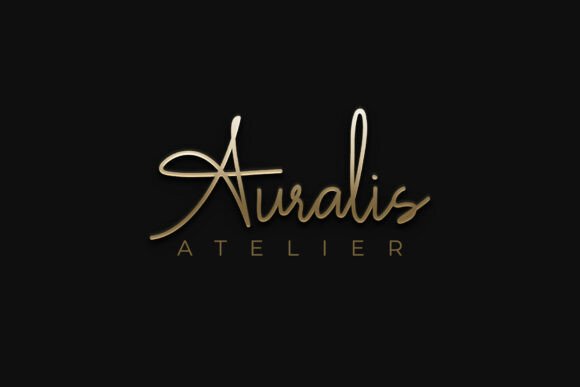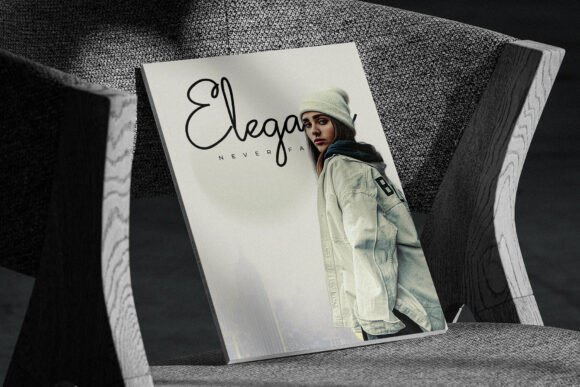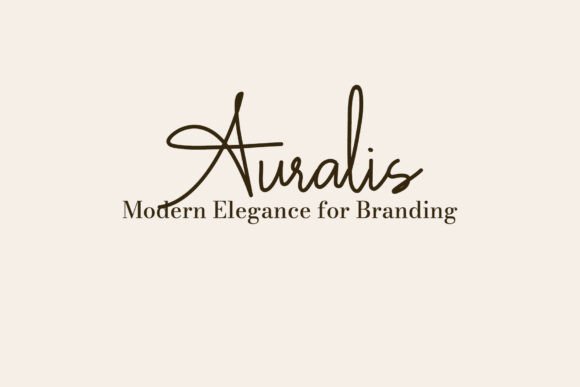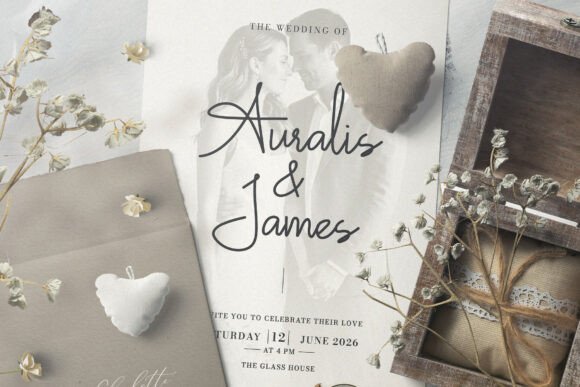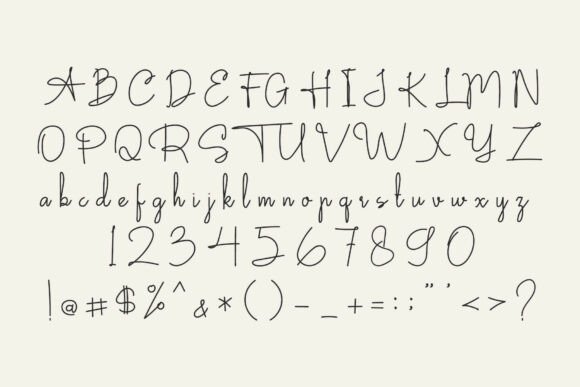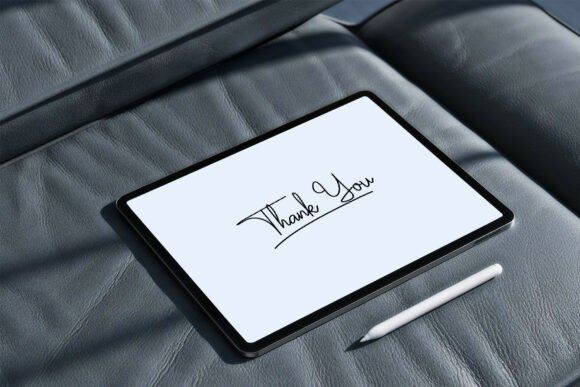
Auralis Signature Font: Elevate Your Designs with Elegance and Sophistication
In the world of typography, a font can make or break the aesthetic of a design. For designers and crafters looking to add a touch of elegance and sophistication to their projects, Auralis Signature Font is an excellent choice. This modern handwritten script font is designed to bring a natural flow and refined character to a variety of designs, from branding and wedding invitations to logos and editorial content.
The Characteristics of Auralis Signature Font
Auralis Signature Font is distinguished by its bold yet refined stroke, which gives it a unique and sophisticated feel. The font’s modern elegance is balanced by its signature feel, making it perfect for creating a stylish and timeless look. Whether you’re working on a creative project or a professional one, Auralis Signature Font is versatile enough to adapt to your needs.
Key Features of Auralis Signature Font
• Modern Handwritten Script: Auralis Signature Font has a natural flow that mimics handwritten scripts, adding a personal touch to your designs.
• Elegant Character: Each letter is designed with elegance in mind, making it suitable for projects that require a sophisticated look.
• Bold yet Refined Stroke: The font’s stroke is bold enough to make a statement but refined enough to maintain elegance and poise.
• Versatile: Perfect for a wide range of applications, including branding, wedding invitations, logos, and editorial designs.
• Timeless Look: Auralis Signature Font helps create designs that are not only stylish but also timeless, ensuring your work remains relevant for years to come.
Applications of Auralis Signature Font
The versatility of Auralis Signature Font makes it suitable for various design projects. Here are some of the key areas where this font can make a significant impact:
Branding
In branding, the font you choose can significantly influence how your brand is perceived. Auralis Signature Font, with its elegant and sophisticated feel, can help elevate your brand’s image. It’s perfect for creating logos, business cards, and other brand materials that require a touch of class.
Wedding Invitations
Wedding invitations are a great way to set the tone for your special day. Auralis Signature Font, with its refined and elegant character, is ideal for designing beautiful and memorable wedding invitations. It adds a touch of sophistication and romance, making your invitations truly special.
Logos
For businesses looking to create a logo that stands out, Auralis Signature Font offers a unique solution. The font’s bold yet refined stroke makes it perfect for creating memorable and impactful logos that capture the essence of your brand.
Editorial Designs
In editorial designs, such as magazines, blogs, and newspapers, typography plays a crucial role in engaging readers. Auralis Signature Font can be used to create headings, subheadings, and even body text that is both stylish and readable, adding a touch of elegance to your editorial content.
Why Choose Auralis Signature Font?
Choosing the right font for your design project can be overwhelming, given the numerous options available. Here are some reasons why Auralis Signature Font stands out:
• Unique and Distinctive: Auralis Signature Font offers a unique and distinctive look that can set your designs apart from the rest.
• Elegance and Sophistication: It brings an unparalleled level of elegance and sophistication to your designs, making it perfect for projects that require a refined look.
• Versatility: The font’s versatility means it can be used across various design projects, from creative endeavors to professional ones.
• Timeless Appeal: Auralis Signature Font helps create designs with a timeless appeal, ensuring your work remains stylish and relevant for years to come.
Font Name Auralis Signature Font
Author Mockmenot
Auralis Signature Font is a powerful tool for designers and crafters looking to add a touch of elegance and sophistication to their projects. Its modern handwritten script, elegant character, and bold yet refined stroke make it perfect for a wide range of applications. Whether you’re working on branding, wedding invitations, logos, or editorial designs, Auralis Signature Font is an excellent choice for creating stylish and timeless looks. With its unique and distinctive look, versatility, and timeless appeal, Auralis Signature Font is sure to elevate your designs to new heights.